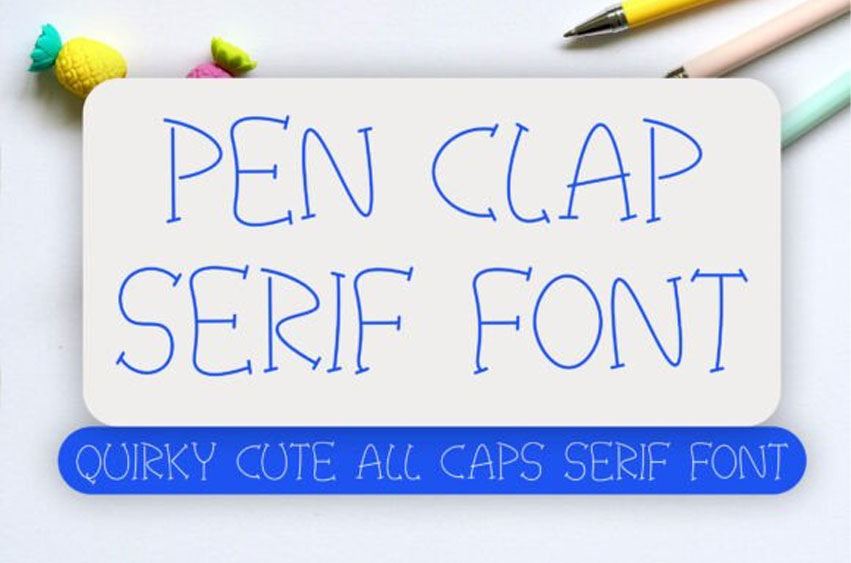
Pen Clap Font
Pen Clap Font is a playful and quirky all-caps serif font with a hand-drawn charm. Featuring unique, slightly irregular strokes and whimsical flair, this font is perfect for adding a fun, creative personality to your projects.
Ideal for kids’ designs, stationery, doodle-style branding, greeting cards, and craft projects, Pen Clap brings a lighthearted twist to classic serif elegance.